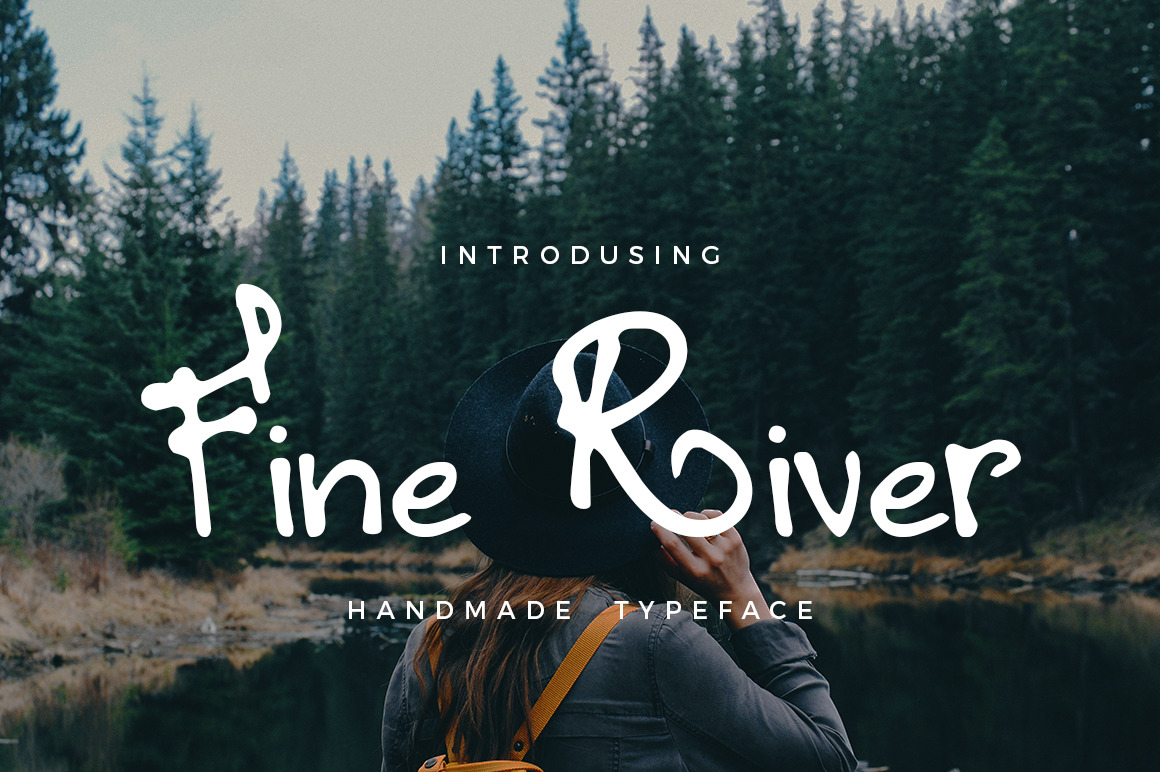
Fine River Hand Drawn Typeface
Fine River is handmade calligraphy font for personal and comercial use. Best for headlines, logo of brands or single phrases.